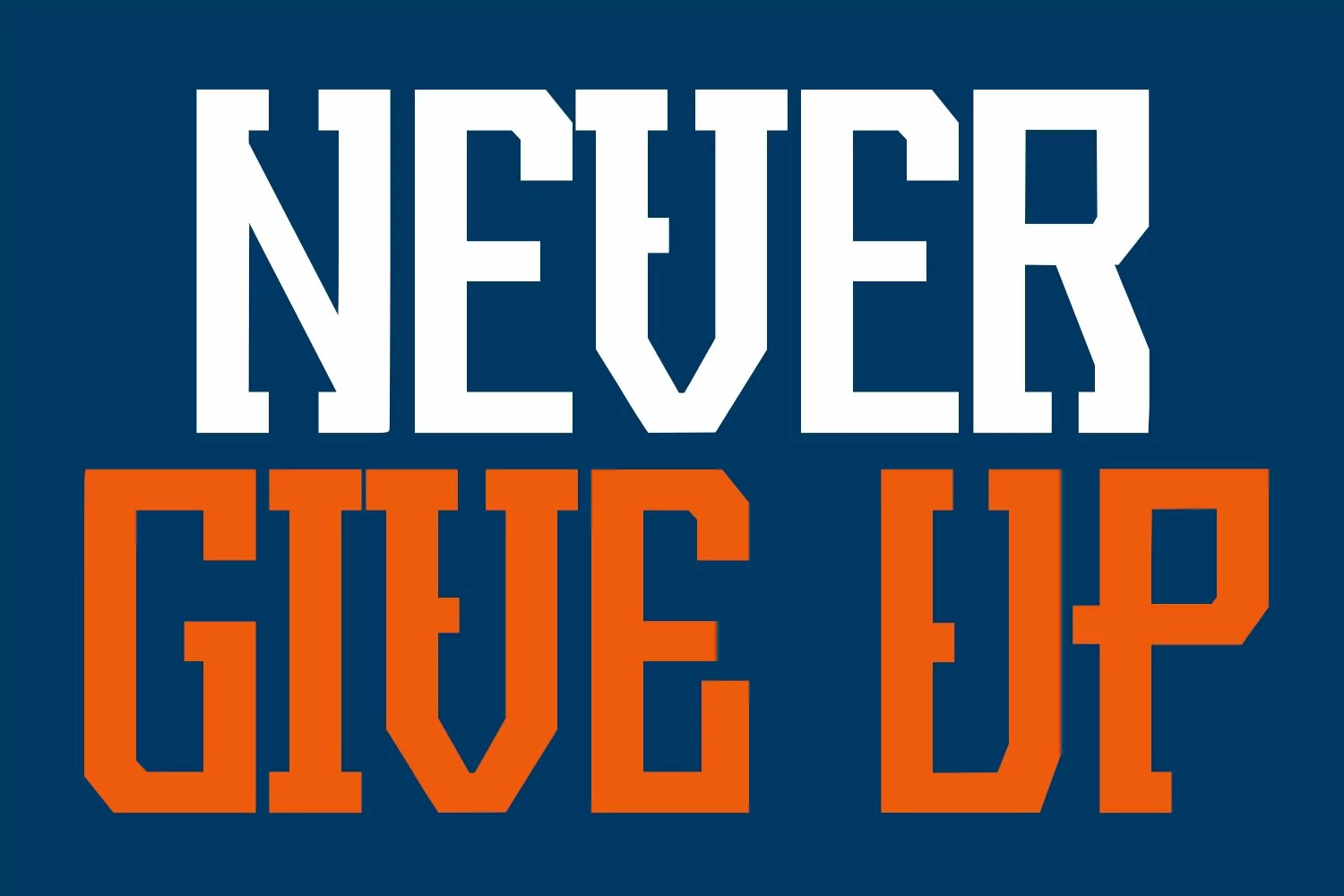
Extreme Lineup - A Bold Sporty Font that contain lowercase, uppercase, symbol, and also support multi language. There’s a lot ligatures in this font. This Font also comes with ligatures, alternates and many more. this font suitable for fashion, branding, catalog and other design what you want.